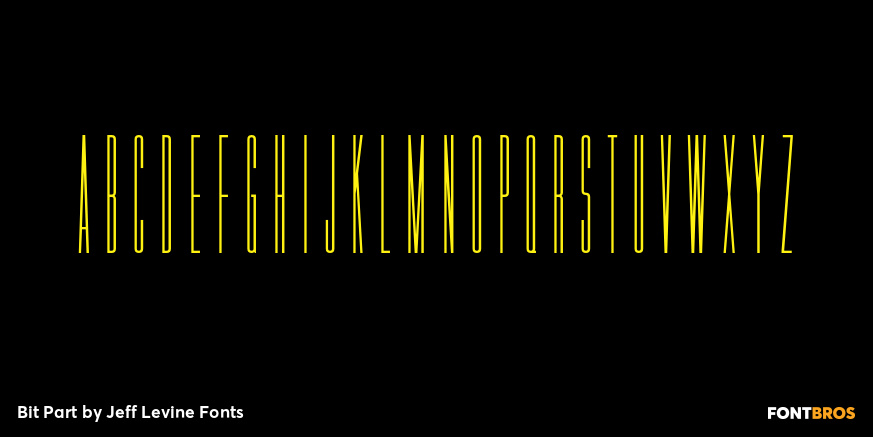
Bit Part
Bit Part JNL is an extra condensed monoline sans serif typeface that's well suited for movie credits, disclaimers and other forms of tight-fit word copy.
Inspired by just the numbers '65' on the cover of a 1965 high school yearbook, this retro font will fit a lot of copy into a small area. The typeface is available in regular and oblique versions.